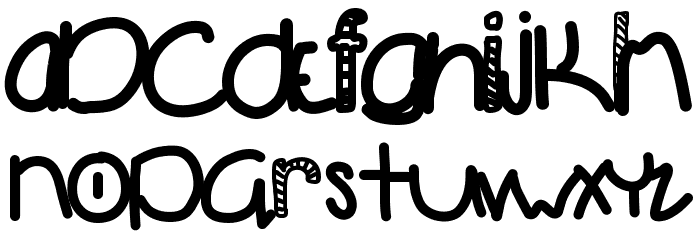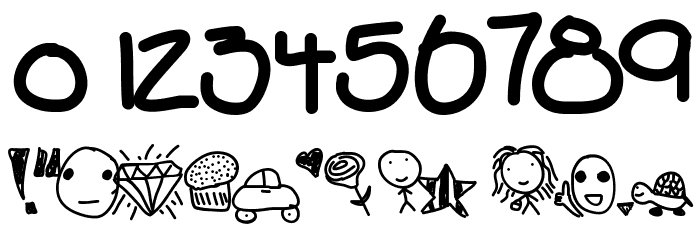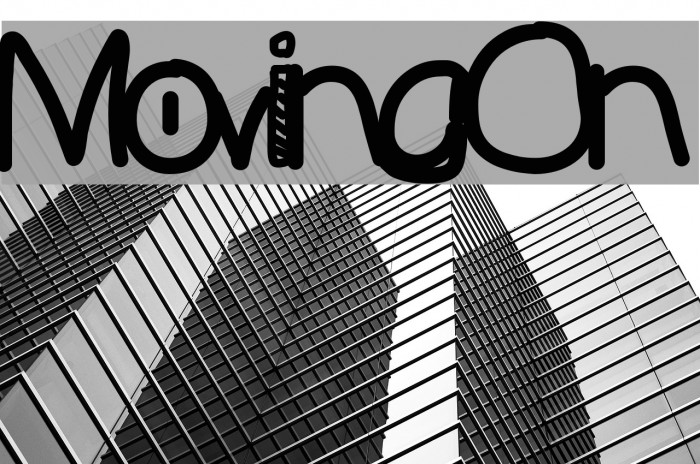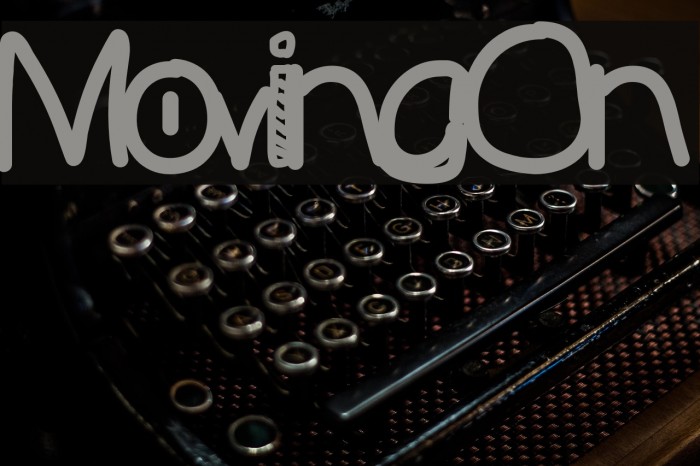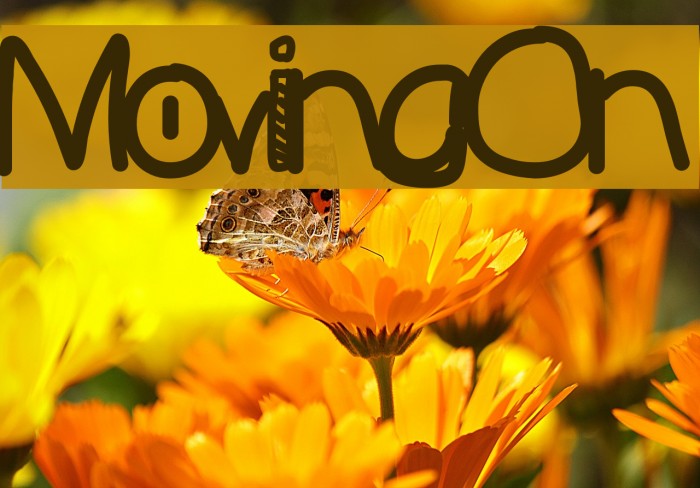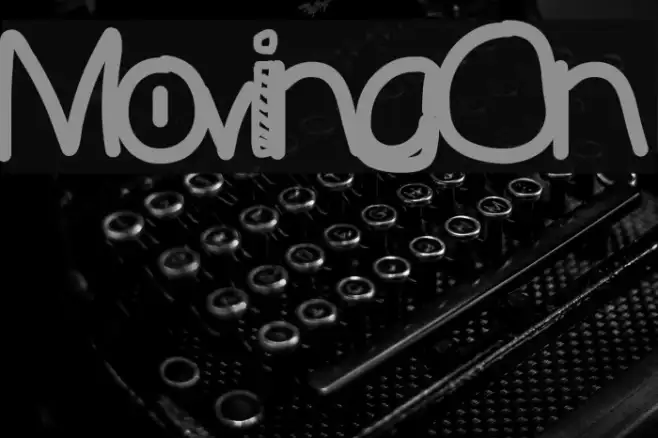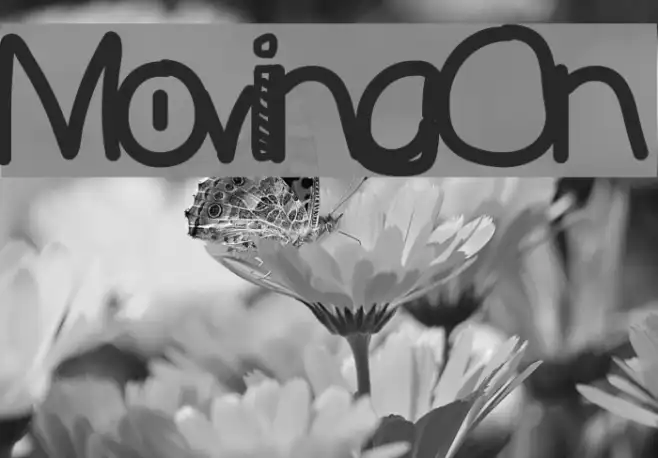
MovingOn Font
This playful and whimsical font features a hand-drawn style with a casual, informal appearance. The characters are bold and rounded, with a mix of uppercase and lowercase letters that add a unique charm. The font includes quirky details, such as uneven lines and playful embellishments, giving it a lively and energetic feel. The numbers and special characters maintain the same playful aesthetic, making it suitable for creative and fun projects. Its distinctive style makes it stand out, perfect for designs that aim to capture attention and convey a sense of fun and creativity.
A playful, hand-drawn font with bold, rounded characters and quirky details.
- Proposed Projects: Ideal for children's books, playful branding, creative posters, and fun invitations.